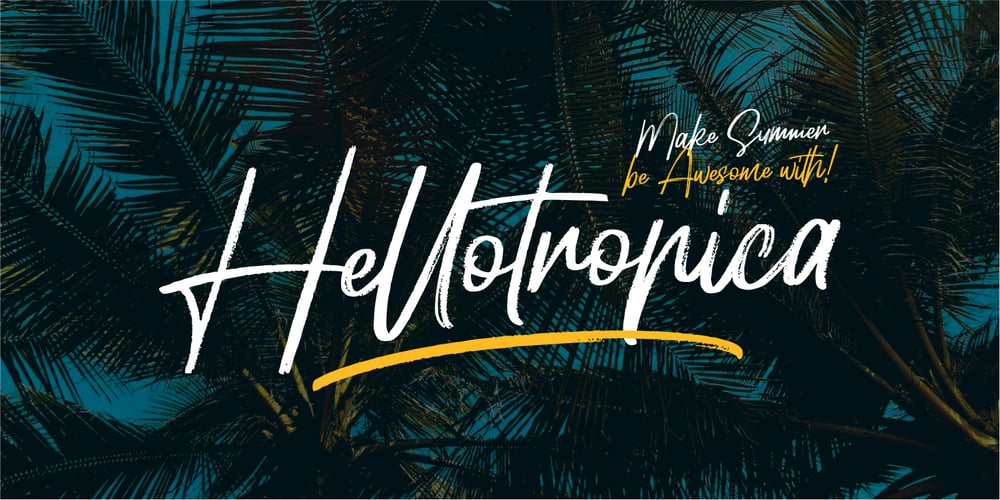
Hellotropica Font Family was designed by Risman Ginarwan and published by Garisman Studio. Hellotropica contains 1 styles and family package options. Hellotropica is made with natural hand brushes to give it Summer Vibes. With the unique Opentype and ligature it will add aesthetic value to your design product. Including Hellotropica Swashes which you can unite into an amazing design. Simple installation Works for Windows or MAC Included file OTF, TTF PUA Encoded Open Versatile for poster, logotype, labels, book cover Detailed dry brush